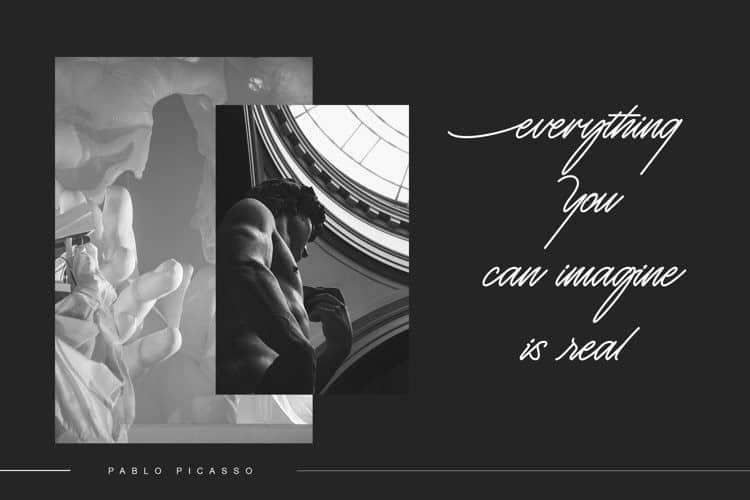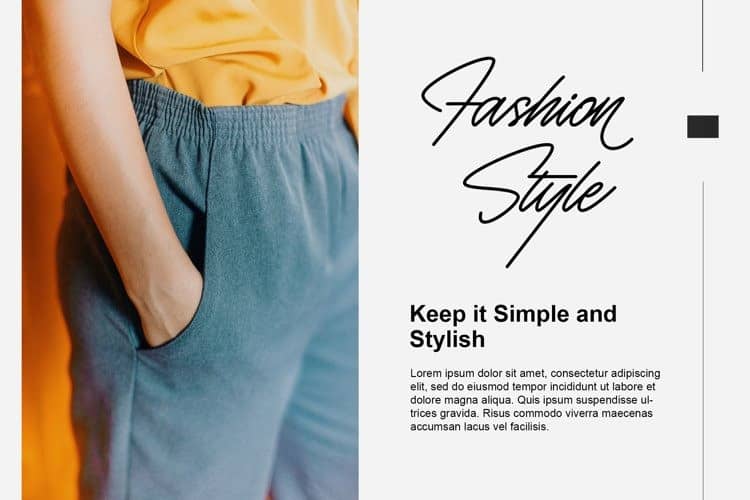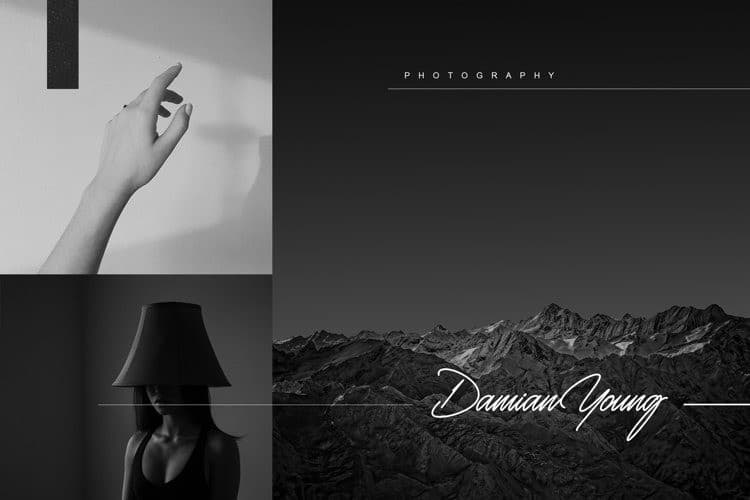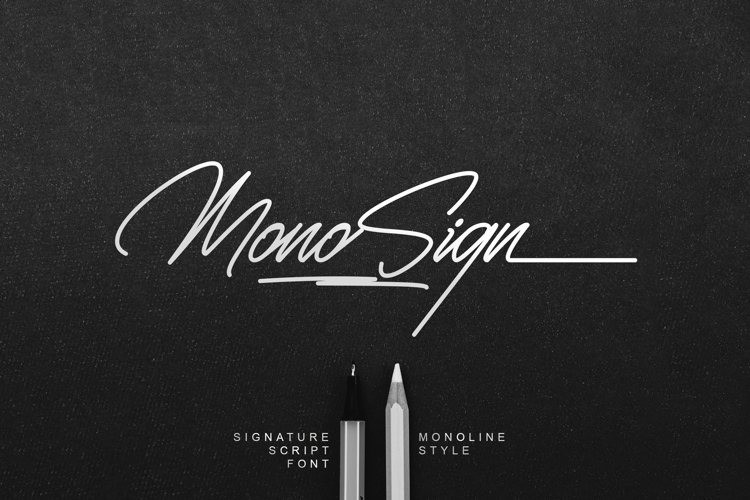
Monosign Script Font
Monosign Script Font is a beautiful monoline hand-drawn font manufactured by lemonthe. Perfect for making elegant stylish statements – or adding a touch of class to your designs. Is perfect for many different project such as logos & branding, invitation, stationery, wedding designs, social media posts, advertisements, product packaging, product designs, label, photography, watermark, special events or anything.This font is PUA encoded which means you can access all of the glyphs and swashes with ease!